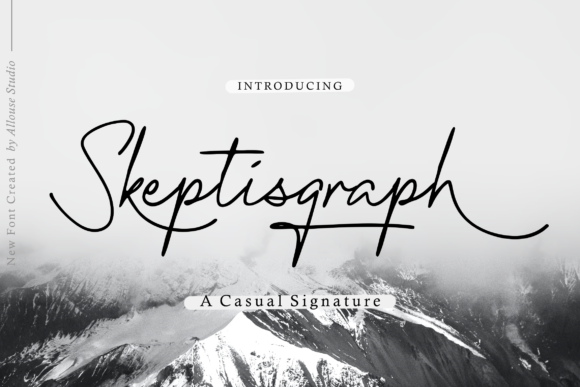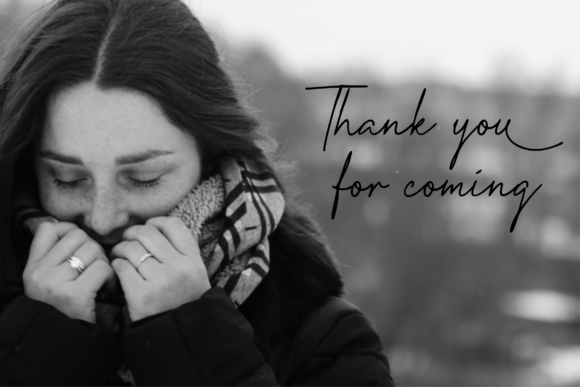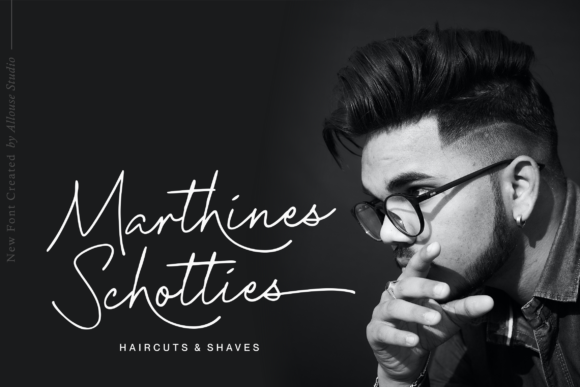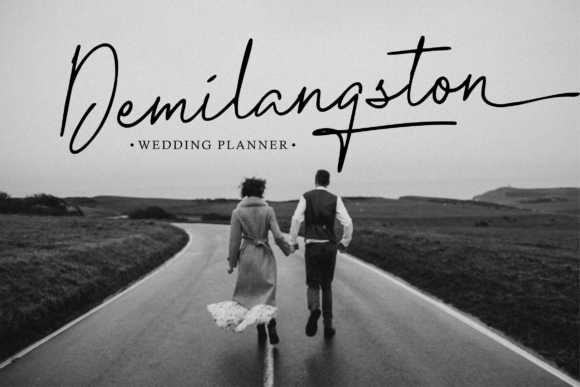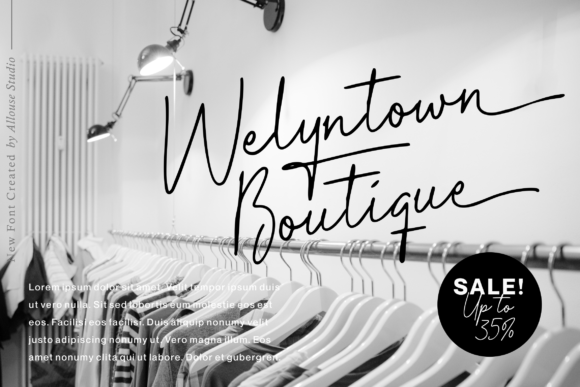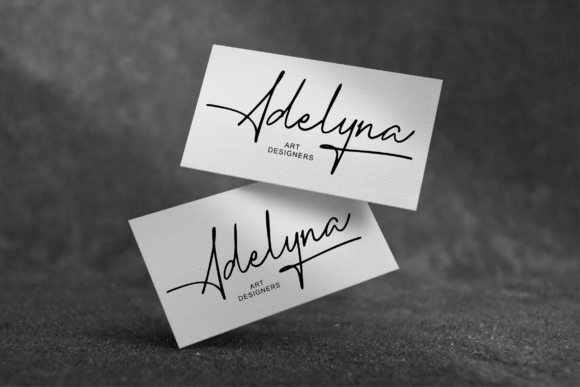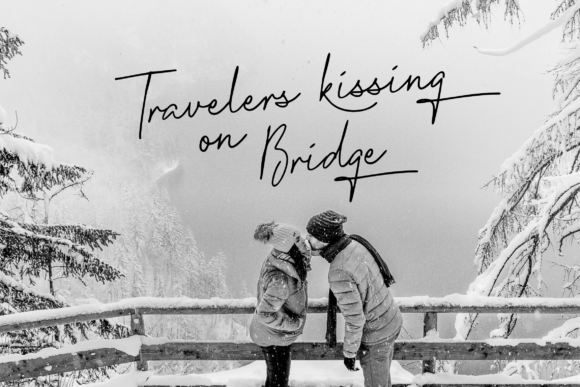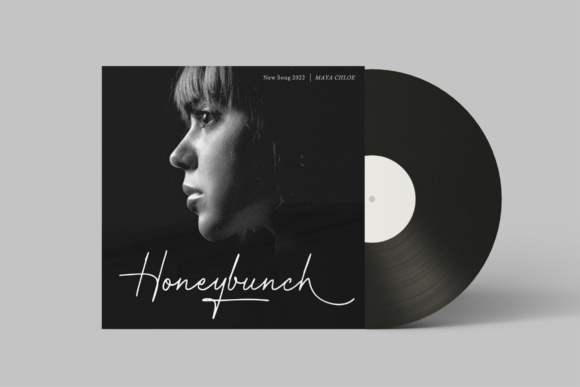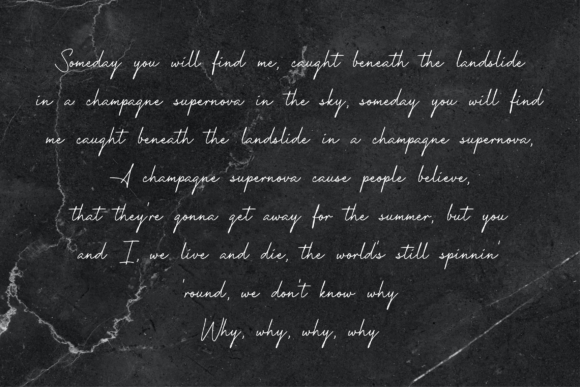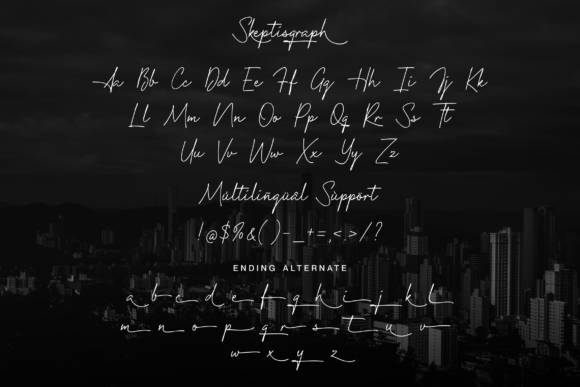
Skeptisgraph Font
About Skeptisgraph Font
Skeptisgraph is a beautiful and light handwritten font with a unique feel and a stunning impact. It will add a luxury spark to any design project that you wish to create! Skeptisgraph is PUA encoded which means you can access all of the amazing glyphs and ligatures with ease!